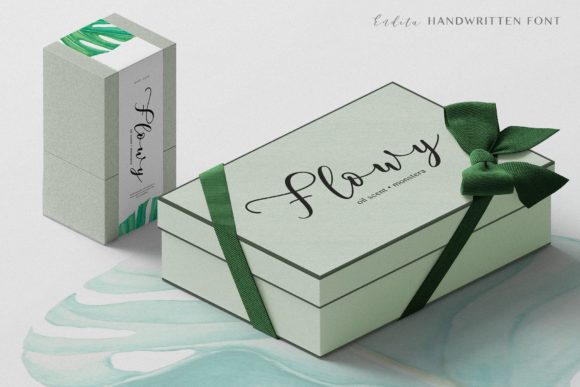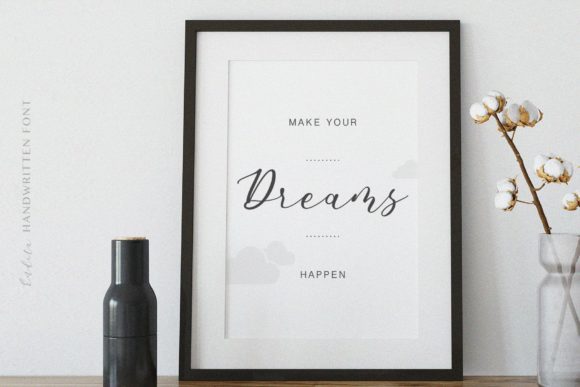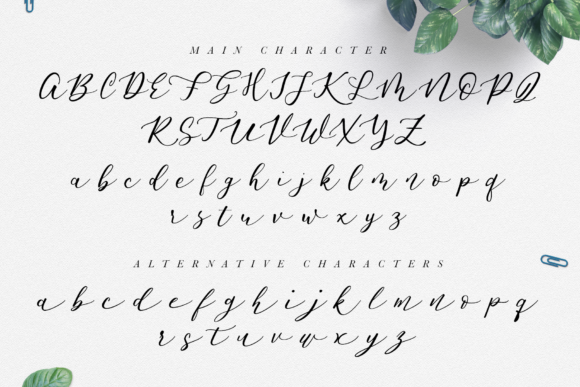
Introduction to Endita Font
As I sat in my cozy home studio, surrounded by half-finished crafting projects and scraps of paper, I stumbled upon the perfect addition to elevate my next creative endeavor. It was the Endita Font, a beautiful flowing handwritten font that instantly captured my heart. Its stylish appeal and romantic touch were exactly what I needed to breathe new life into my design.
Whether you’re a seasoned designer or a crafting enthusiast, the Endita Font is a valuable addition to your design arsenal. Its unique charm and versatility make it an essential resource for any creative project, and I’m excited to dive deeper into its features and uses in this article.
Key Features of Endita Font
- High-quality design resource suitable for creative projects requiring a unique touch.
- Unique, handcrafted design that adds a personal touch to any creative project.
Honest Review: Endita Font
As a designer, I’m always on the lookout for high-quality design resources to elevate my creative projects. Recently, I stumbled upon the Endita Font, and I must say, it’s a game-changer.
However, I do have a few reservations about Endita Font. While it’s incredibly versatile, it may not be the best option for designers who need a font with a more distinctive personality.
- ⚠️ May not be the best option for designers who need a font with a more distinctive personality
Overall, I’m thoroughly impressed with Endita Font. It’s a high-quality design resource that’s perfect for a wide range of creative projects. If you’re looking for a versatile and easy-to-use font, I highly recommend giving Endita Font a try.
The Endita Font is a versatile design resource that can be used for various creative projects, such as logo design, branding, and marketing materials. It’s also great for creating beautiful invitations, greeting cards, and other paper crafts.
Can I customize the Endita Font to fit my design needs?
Yes, the Endita Font is highly customizable. You can adjust the font size, color, and style to fit your design needs. Additionally, the font has a transparent background, making it easy to use with different backgrounds and designs.